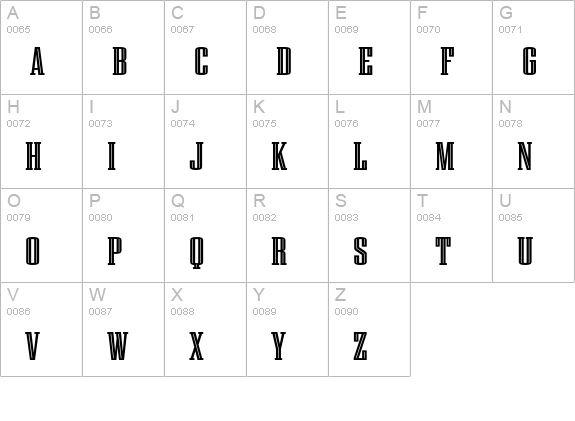
Citadel-Inline Font Details
Citadel-Inline font is a modern and stylish typeface that exudes sophistication and elegance. With its sleek lines and intricate detailing, this font is perfect for adding a touch of class to any design project. The unique inline style of Citadel-Inline font gives it a distinctive look that is sure to capture attention. What's even better is that Citadel-Inline font is completely free to download at FontsMarket.com. This means you can elevate your designs without breaking the bank. Whether you're working on a logo, poster, or website, Citadel-Inline font is a versatile choice that will make your text stand out. Download it today and add a touch of luxury to your next project.